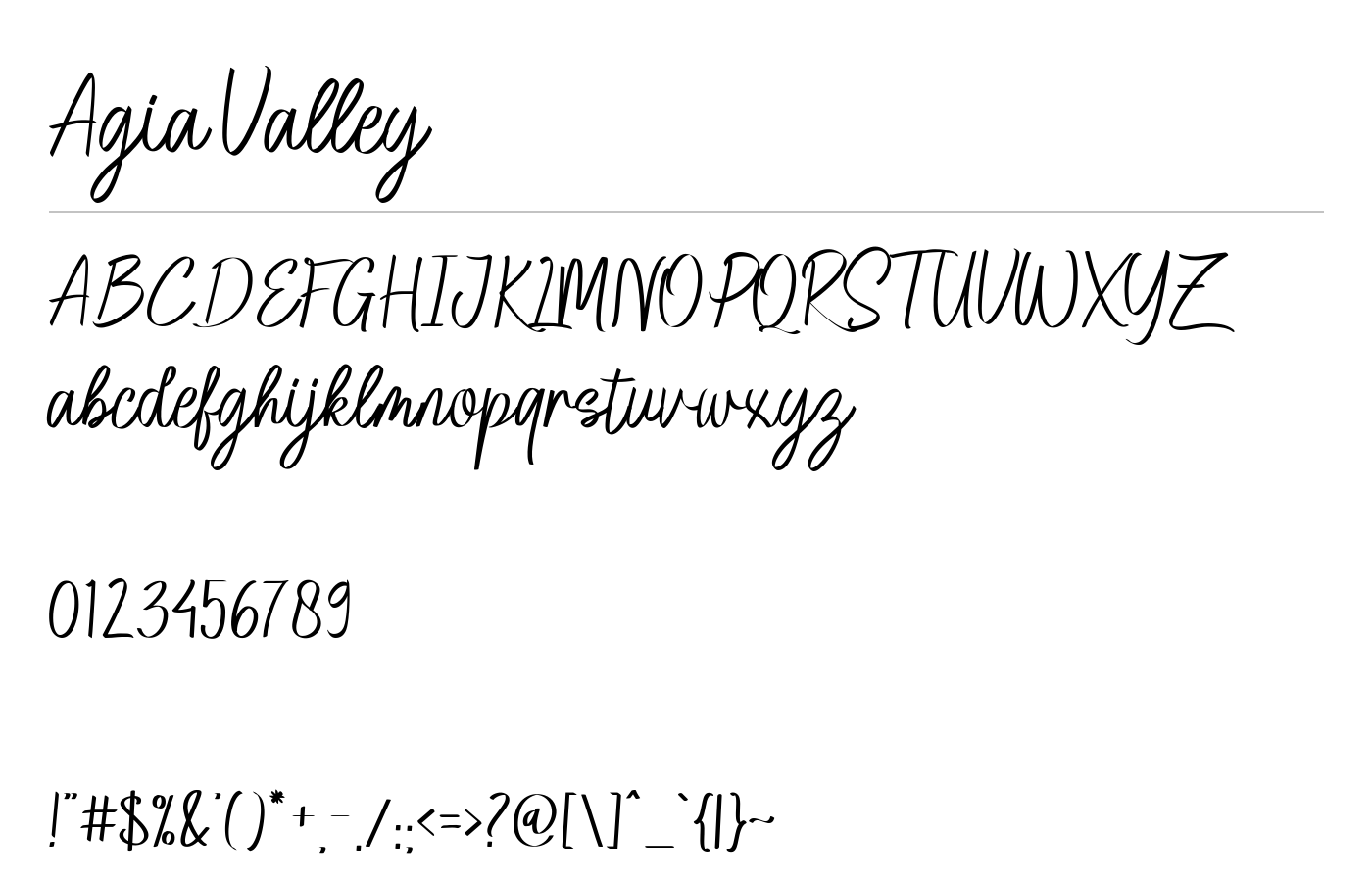
Agia Valley is a delicate, handwritten script font with a slender, flowing style that exudes a personal, artistic touch. Its light weight and natural stroke variation make it perfect for creative projects, invitations, and branding that seeks an elegant yet approachable feel. This font shines in designs where a casual, yet refined, hand-drawn aesthetic is desired.
Agia Valley Font